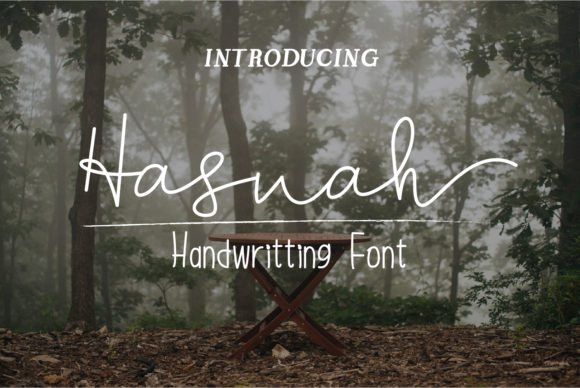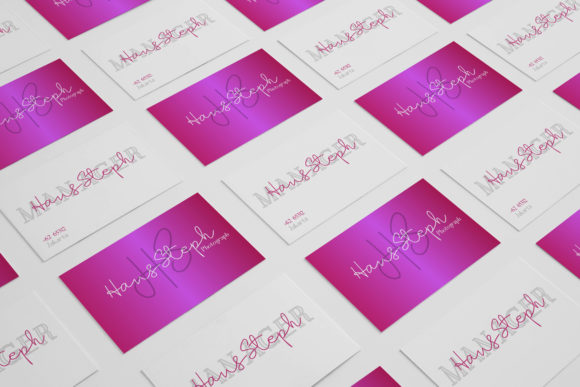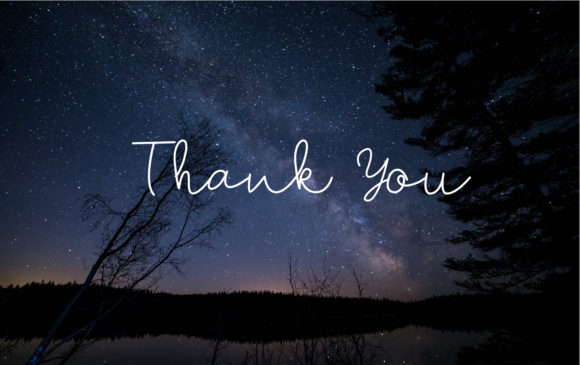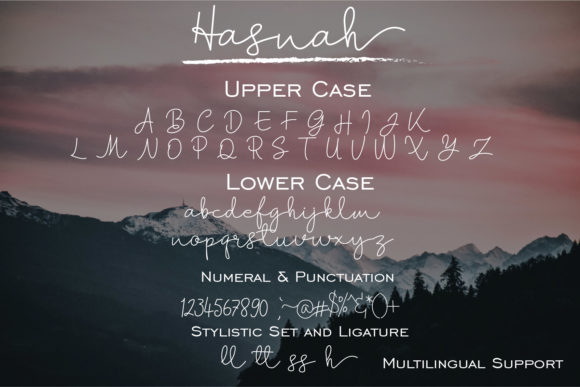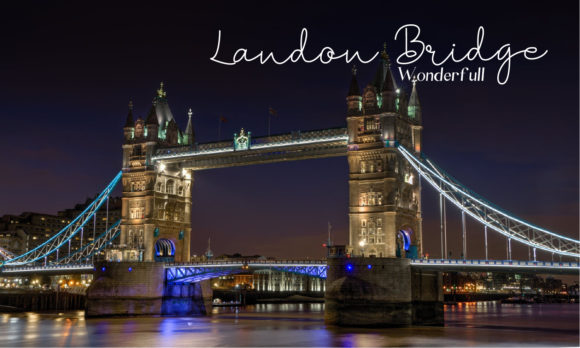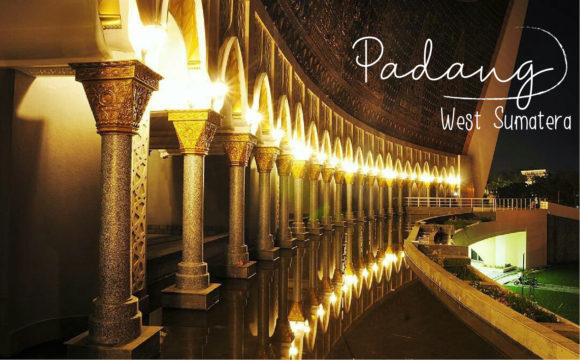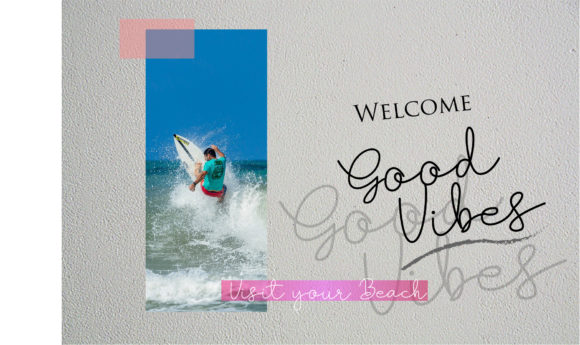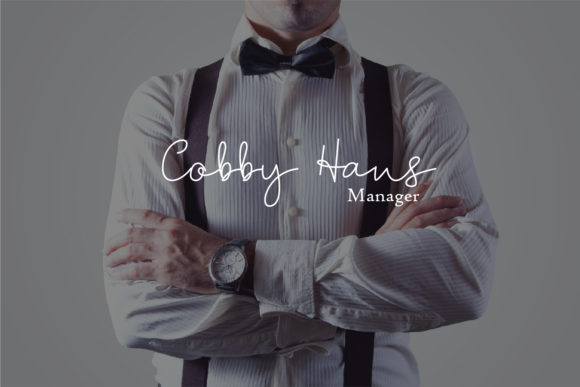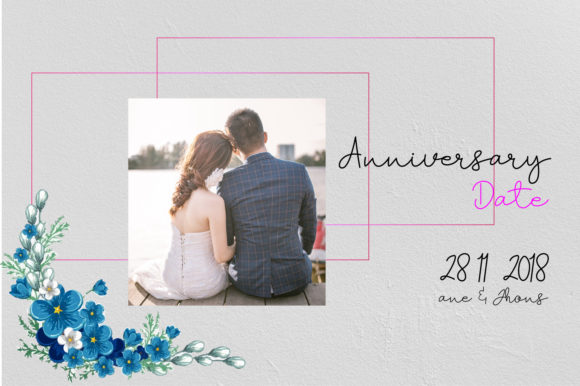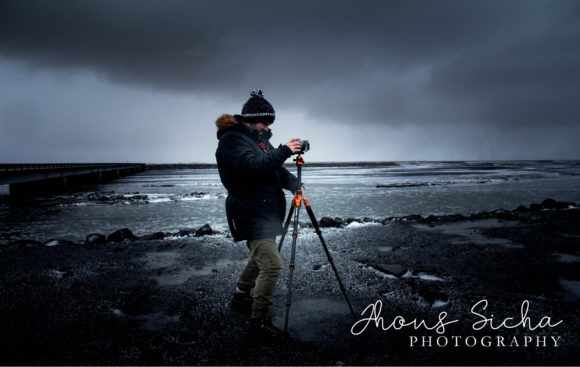
HomeScript FontsHasnah Font Script Fonts Hasnah Font FacebookXPinterestWhatsApp Hasnah Font Poster 2 Hasnah Font Poster 3 Hasnah Font Poster 4 Hasnah Font Poster 5 Hasnah Font Poster 6 Hasnah Font Poster 7 Hasnah Font Poster 8 Hasnah Font Poster 9 Hasnah Font Poster 10 Hasnah Font Poster 11 About Hasnah Font The Hasnah is an elegant script which can be used for every design which needs to look upscale and chic. DOWNLOAD ON CREATIVE FABRICAThis font is sold and delivered by Creative Fabrica. Font Canyon may earn a commission if you buy through this link. People also explored Margaretha Font The Afternoon Font Romantic Signature Font Nashville Font Heart Dingbats Font Alamark Font Hello Winter Font Sbastian Font Lovelya Kattrine Font 552 0 TagsHasnah Font Previous articleDelissa FontNext articleAsem Kandis Font LEAVE A REPLY Cancel reply Comment: Please enter your comment! Name:* Please enter your name here Email:* You have entered an incorrect email address! Please enter your email address here Website: Save my name, email, and website in this browser for the next time I comment. Personal Use Free Multicolore Personal Use Free Read more about this font Wintersoul Personal Use Free Read more about this font Mueband Personal Use Free Read more about this font Anjhay Personal Use Free Read more about this font BLOG Transform Your Website: Elevate Your Typography with 7 Best Web Font Generators Are you ready to transform your website's typography from ordinary to extraordinary? Great! Today, we're diving into the world of web font generators, which... Modern Sans-Serif Fonts That Brands Love in 2025 Best Fonts for T-Shirt Design – Top 2025 Picks Fonts That Capture the Spirit of New York City